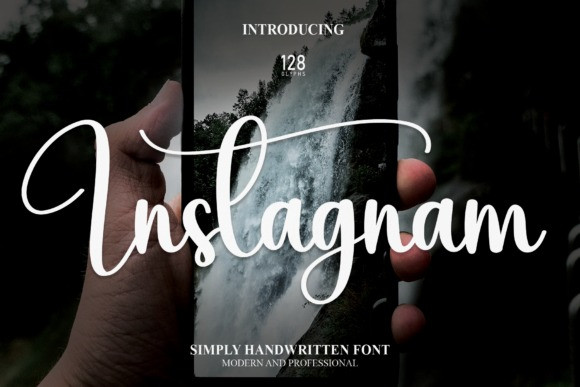
Instagnam Font
Instagnam font, perfect for wall displays, wedding invitations, social media post logos, advertising, product packaging, product design, labels, photography, watermarks, invitations, text stationery and any project that requires a hobby of handwriting.